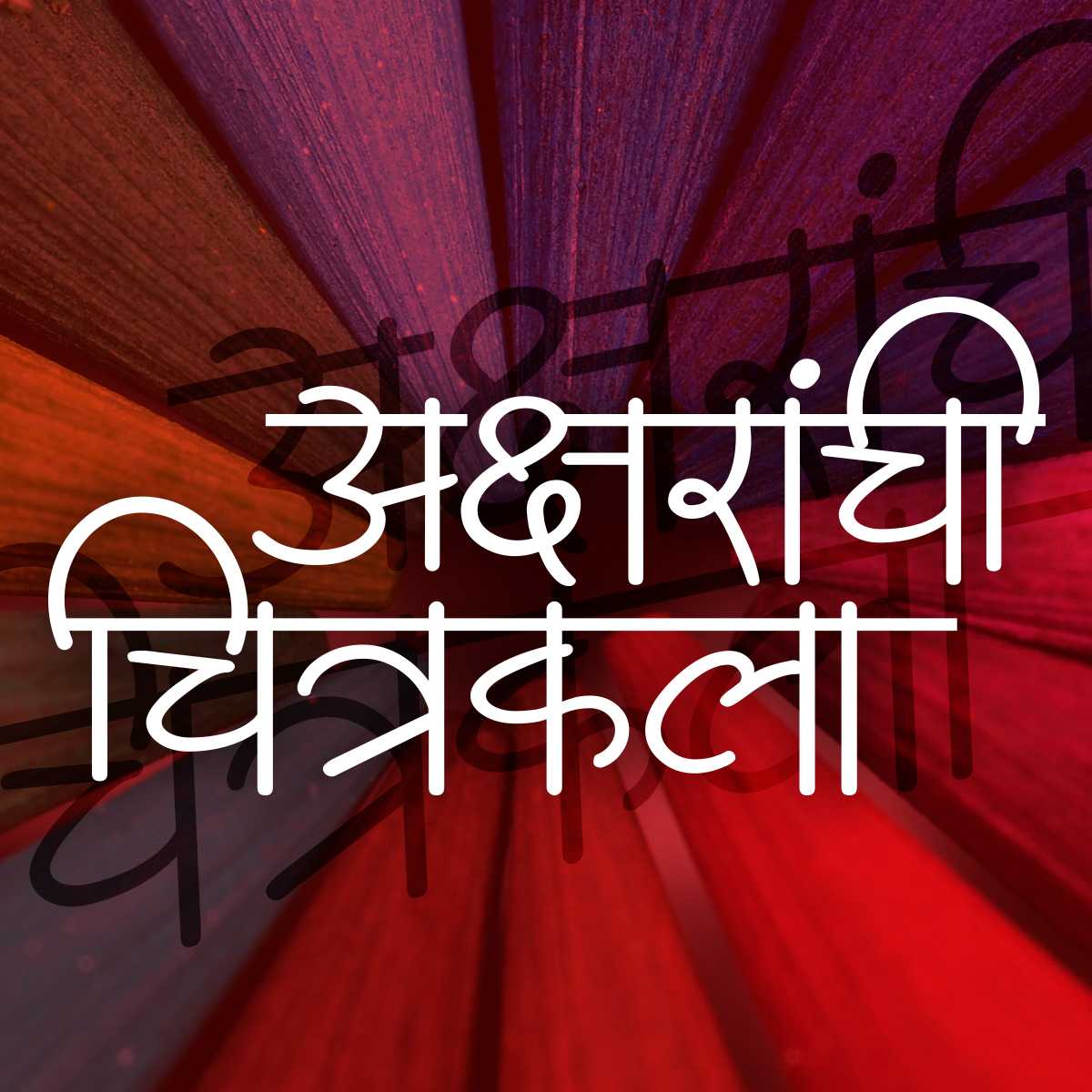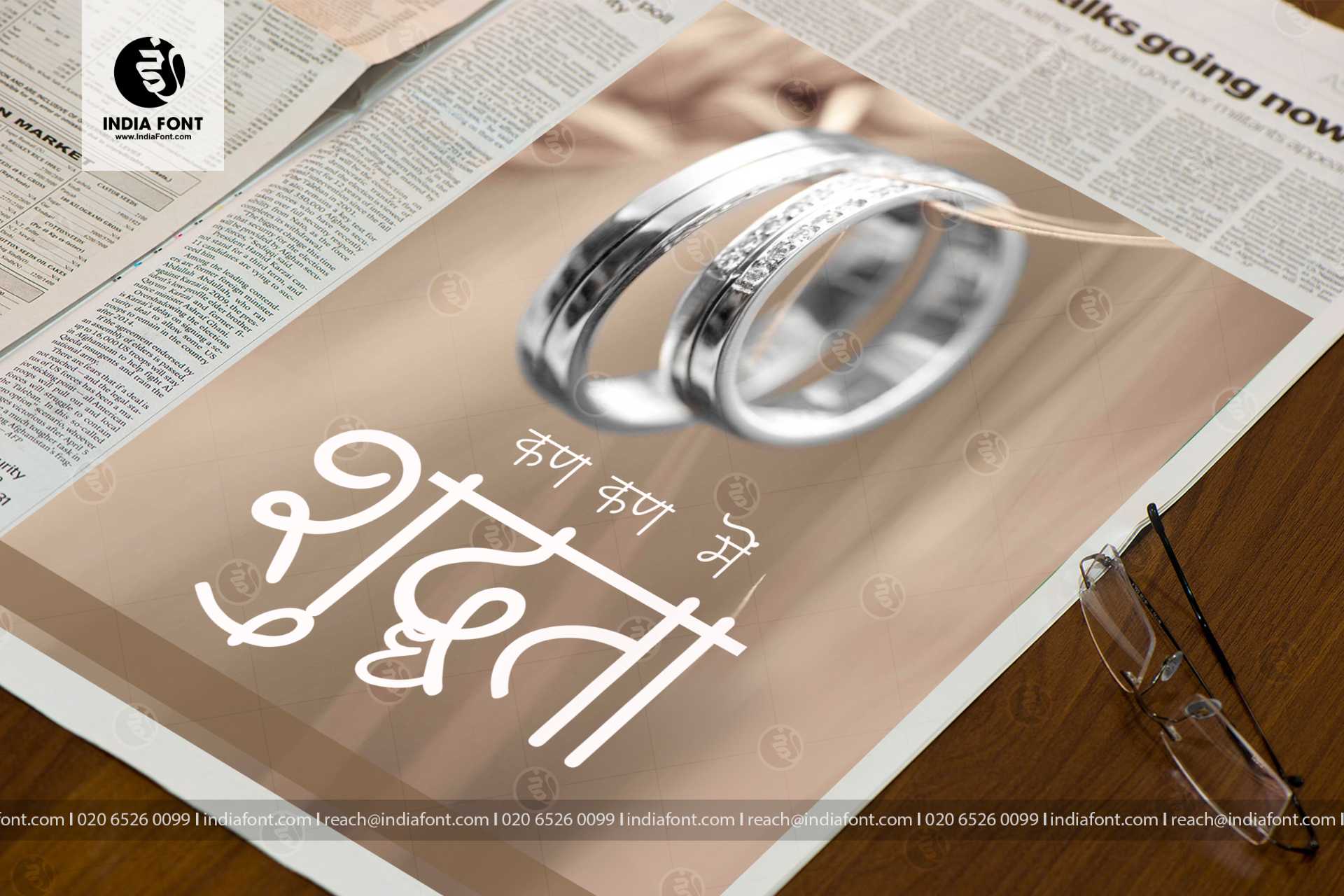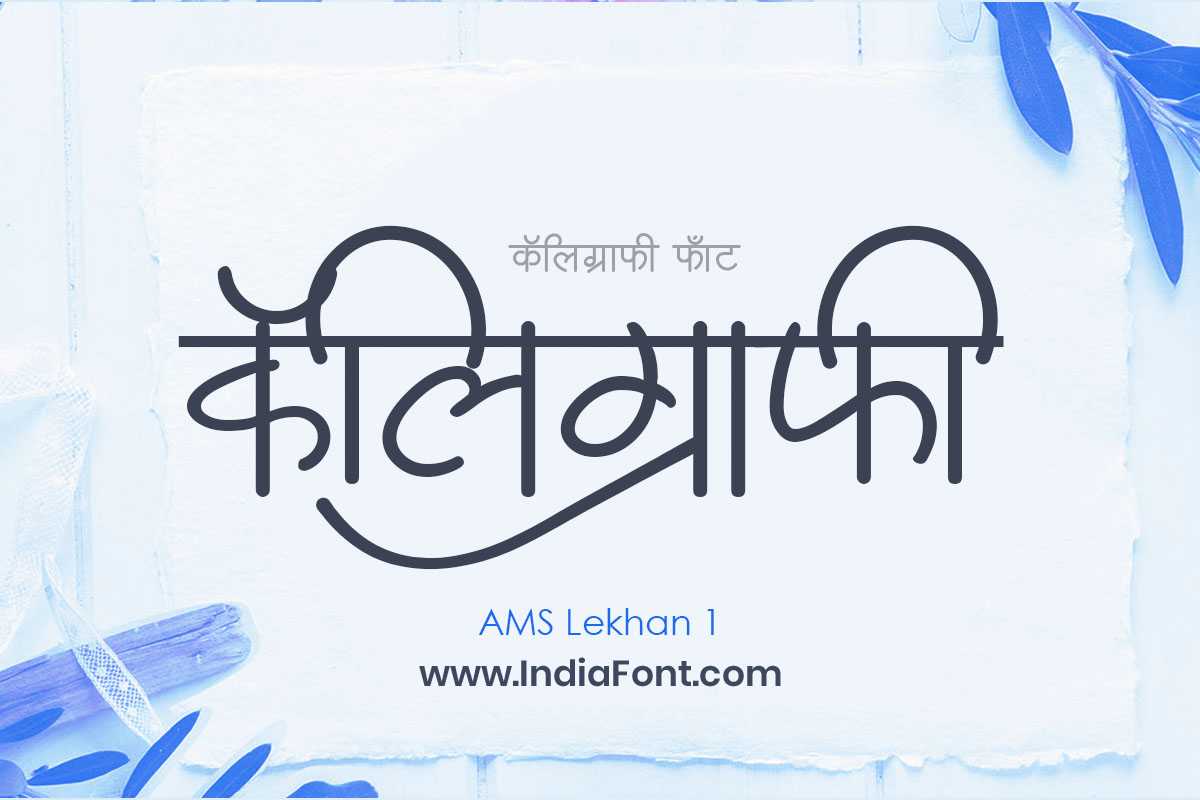
AMS Lekhan 1
Experience the artistry of handwritten calligraphy with AMS Lekhan 1, a font that showcases the beauty of flowing strokes. Whether you're seeking free AMS fonts, specifically looking for AMS Lekhan 1 font download options, or exploring AMS calligraphy fonts, AMS Lekhan 1 will bring an authentic touch to your designs.
About AMS Lekhan 1 Font
Experience the artistry of handwritten calligraphy with AMS Lekhan 1, a font that showcases the beauty of flowing strokes. Whether you're seeking free AMS fonts, specifically looking for AMS Lekhan 1 font download options, or exploring AMS calligraphy fonts, AMS Lekhan 1 will bring an authentic touch to your designs. This calligraphy font combines elegance with functionality, making it perfect for various design applications.
AMS Lekhan 1 is a professionally crafted calligraphy typeface that brings clarity and style to your projects. Designed with attention to detail, it supports hindi and marathi characters flawlessly.
Whether you're working on wedding-materials, invitations, logos, or other creative projects, AMS Lekhan 1 delivers consistent performance across both digital and print media. This carefully designed typeface ensures readability and visual appeal in all your design work.
AMS Lekhan 1 excels in various design scenarios. Here are the most suitable applications:
About AMS Lekhan 1 Typography Style
AMS Lekhan 1 is a professionally crafted calligraphy font that exemplifies modern Hindi typography design. This free font is perfect for designers seeking professional branding and logo design projects.
Available in 1 weight and supporting hindi, marathi scripts, AMS Lekhan 1 offers exceptional versatility for both digital and print media. Whether you're working on wedding-materials, invitations, logos, this carefully designed typeface ensures consistent quality and professional results across all your typography projects.